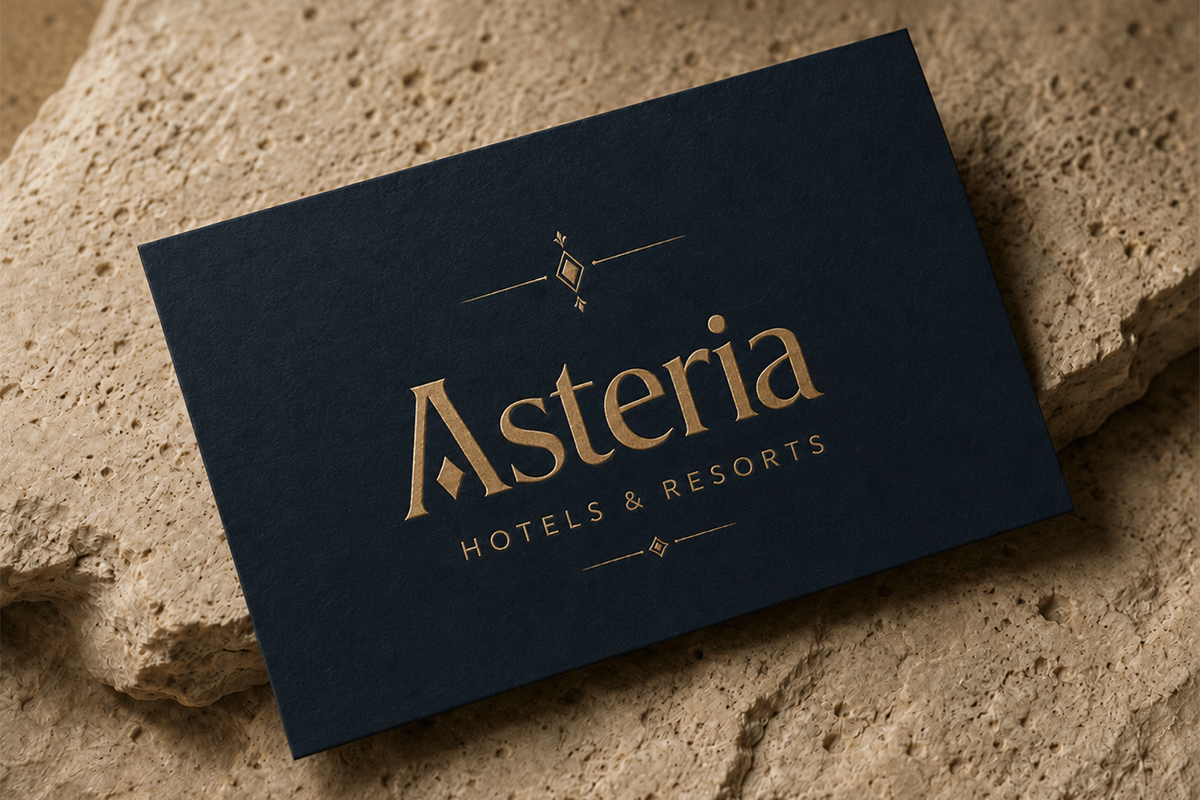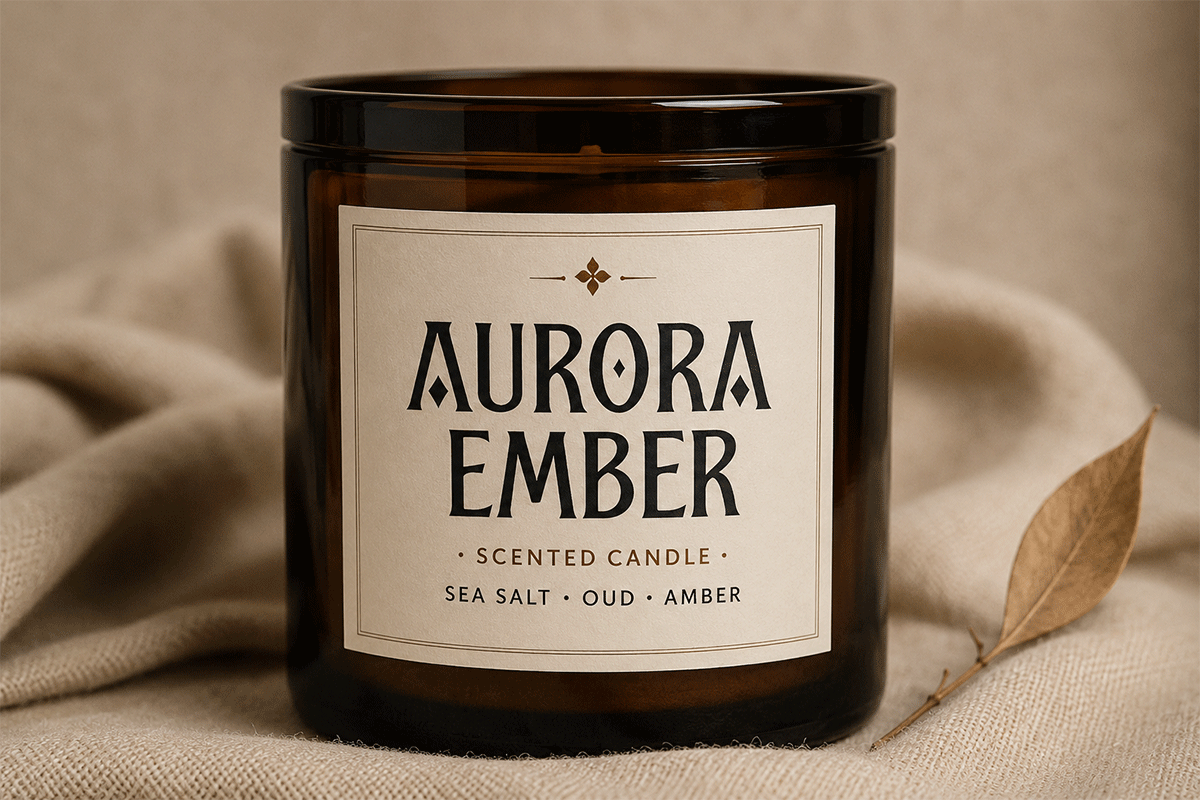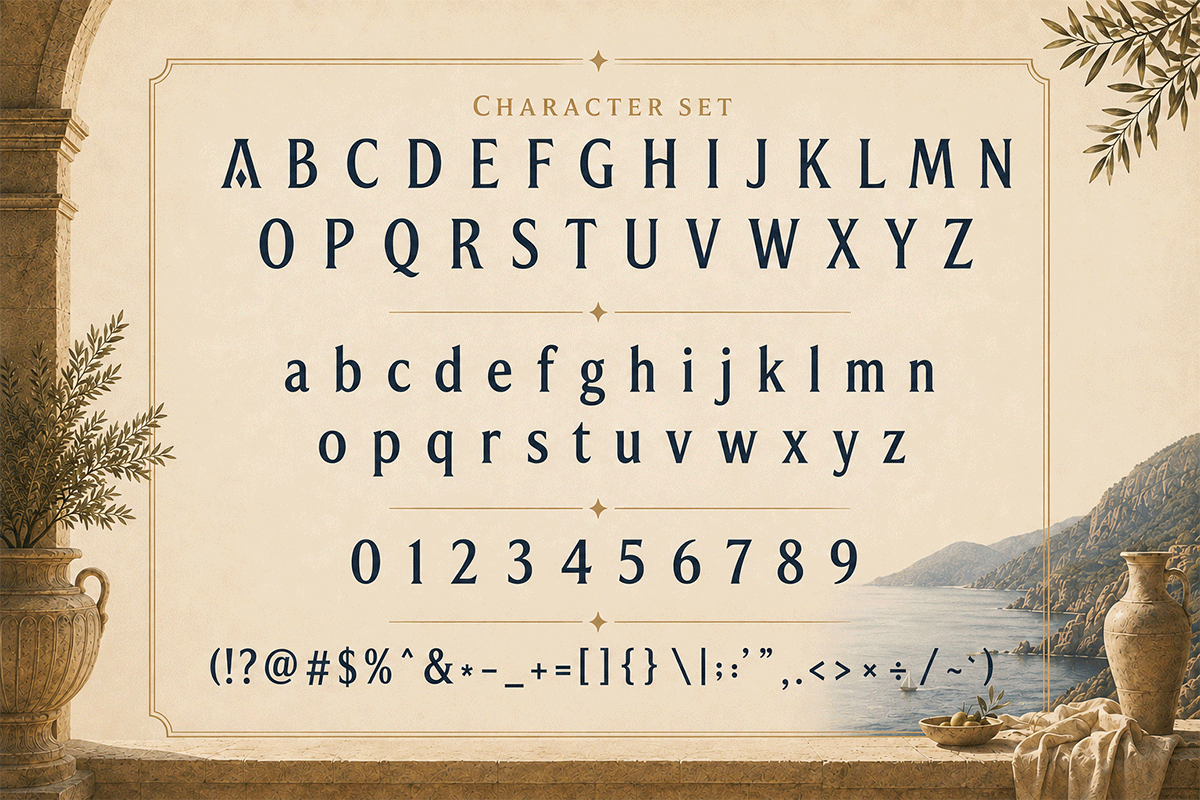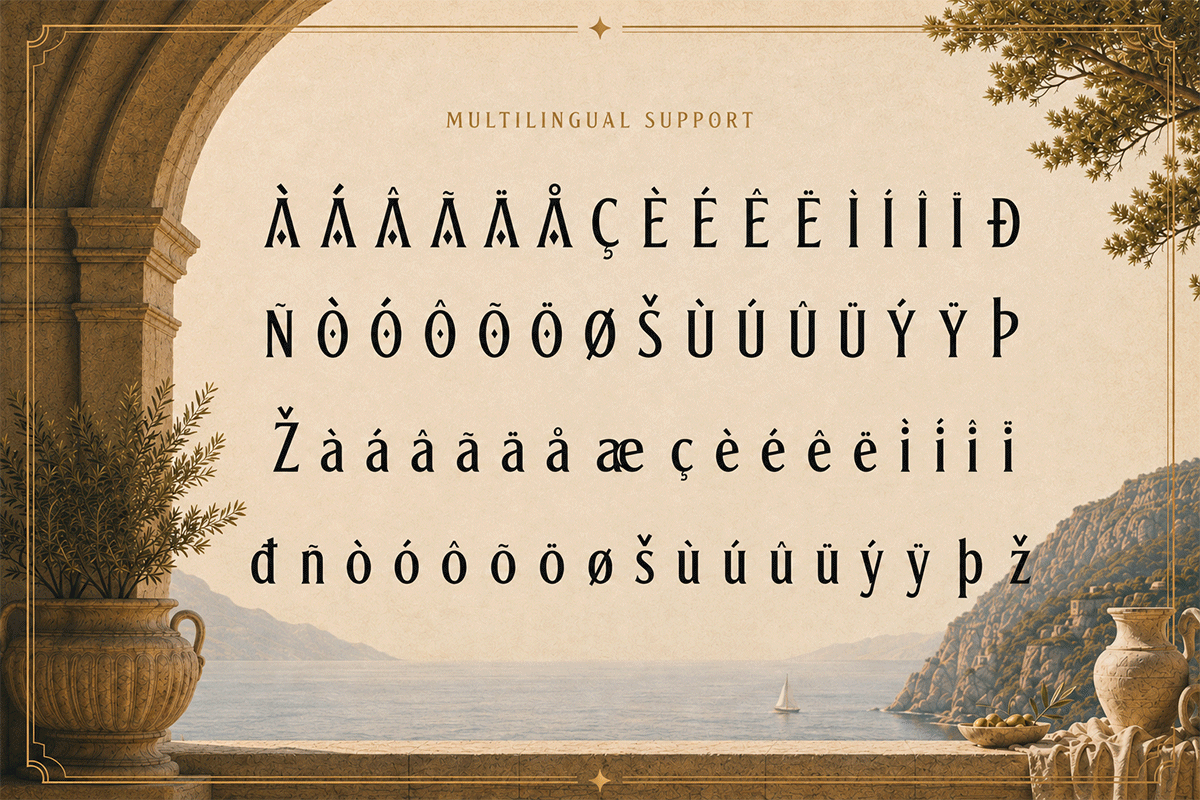
Aurelian A Modern Timeless Elegant Serif Font is a refined serif typeface crafted with timeless elegance and a strong editorial presence. Its graceful proportions, sharp serifs, and sophisticated contrast create a distinctive balance between classical heritage and modern luxury.
Designed to feel confident yet graceful, Aurelian brings a sense of prestige and sophistication to every composition. Its sculpted letterforms and elegant details make headlines feel commanding while maintaining a polished, premium character.
Aurelian A Modern Timeless Elegant Serif Font is ideal for luxury branding, fashion editorials, logos, magazines, packaging, invitations, hotel and hospitality identities, beauty products, premium advertisements, and sophisticated social media designs.
Inspired by classical architecture, Mediterranean elegance, and enduring craftsmanship, Aurelian A Modern Timeless Elegant Serif Font is a typeface designed for brands and stories that deserve to feel timeless.
Perfect for:
Luxury Branding • Logos • Editorial • Fashion • Magazines • Packaging • Invitations • Hospitality • Beauty • Premium Products